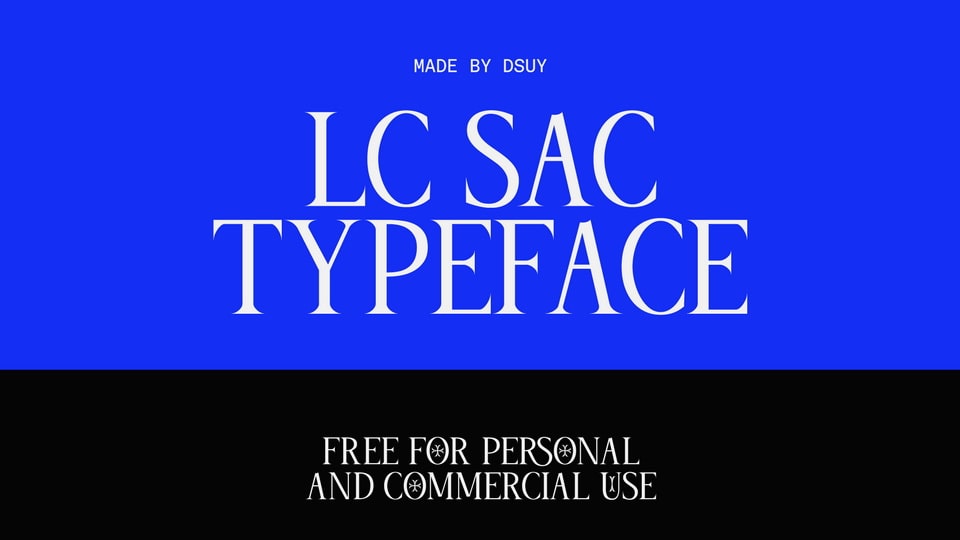
Download LC Sac font, a decorative serif typeface with an elegant and sophisticated look. LC Sac Display is strongly inspired by roman square capitals in 4th century with very sharp serif.
Designer: Dsuy Nguyen